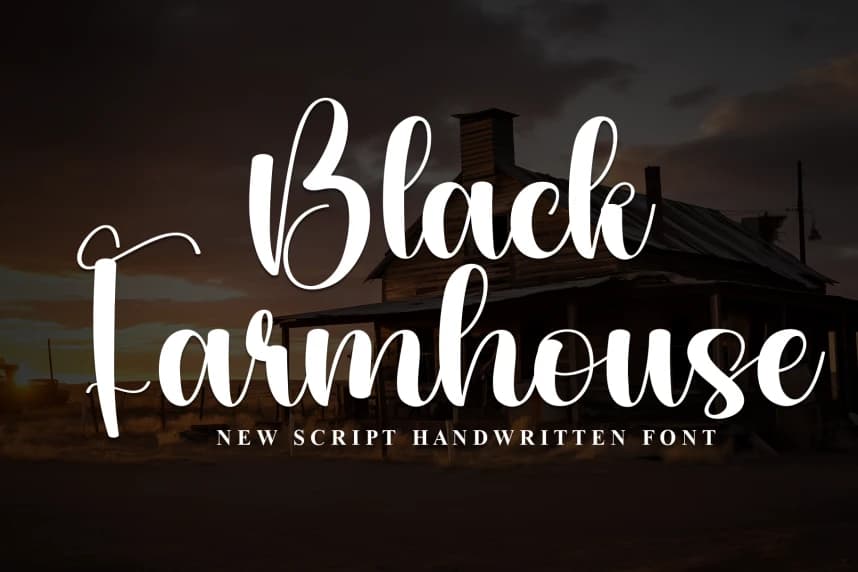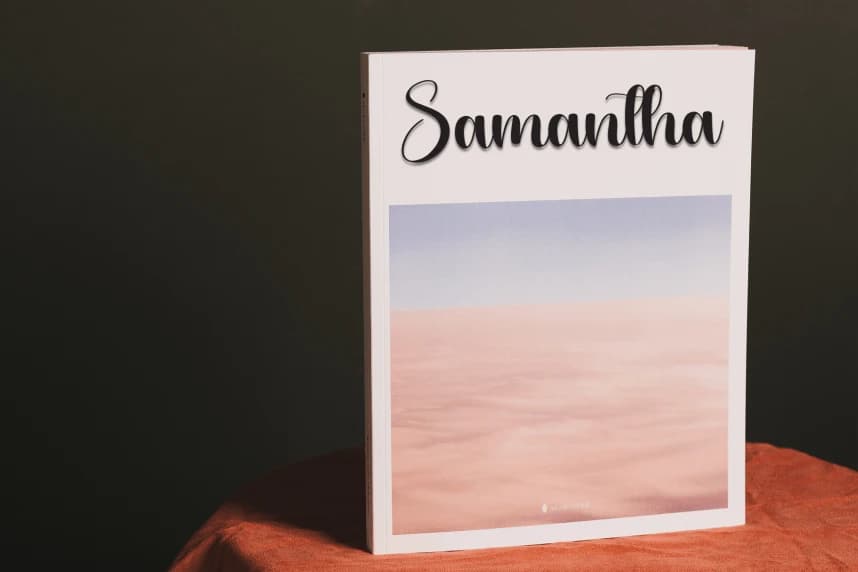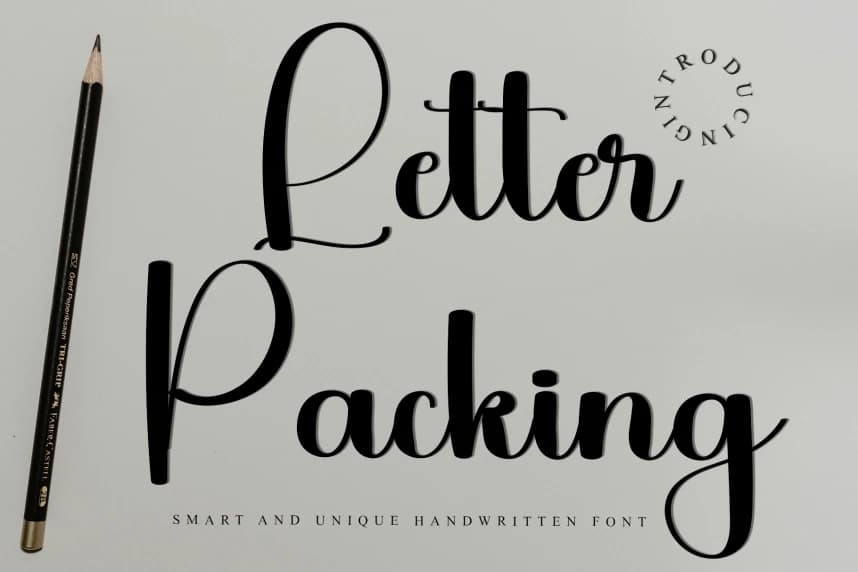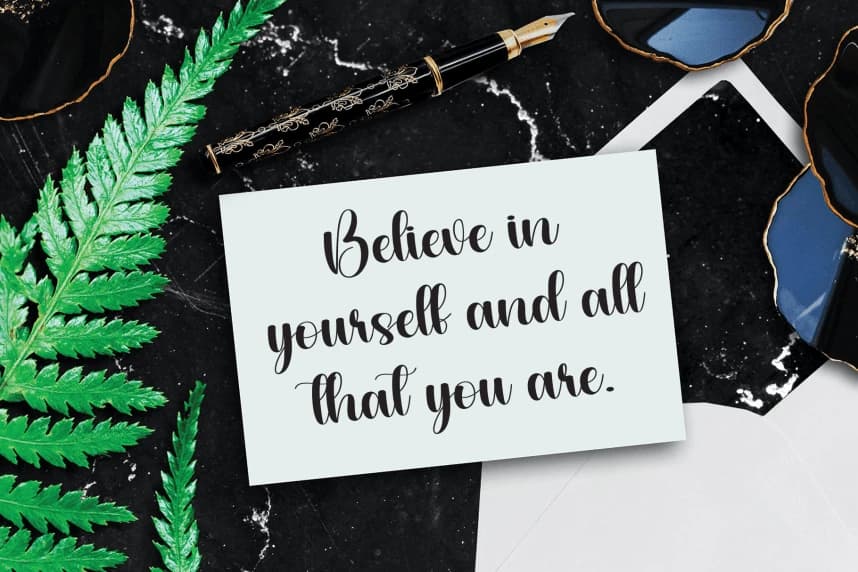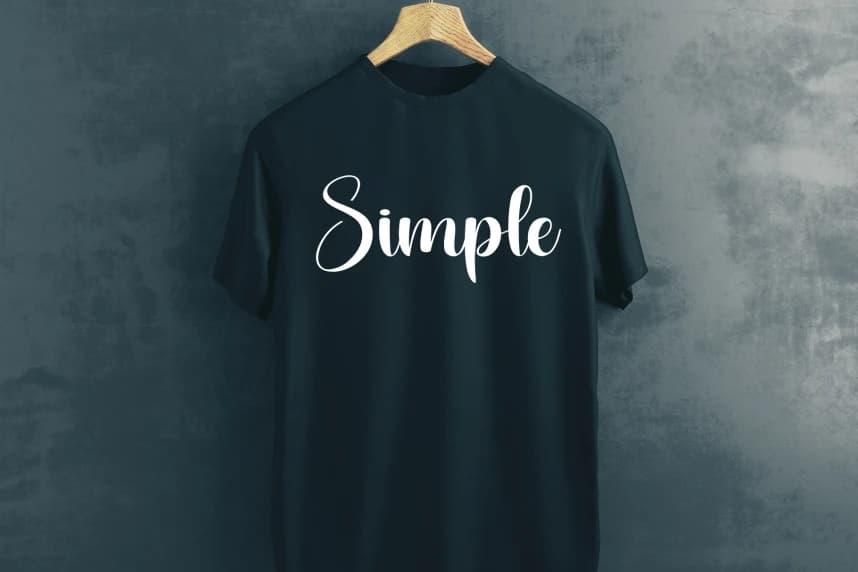
Black Farmhouse – Casual Handwritten Script Font
Black Farmhouse – Casual Handwritten Script Font is a sweet and friendly handwritten display font. Cute and fun, this font is ideal for writing wedding invitations, cards, or any other design that might need a playful touch!